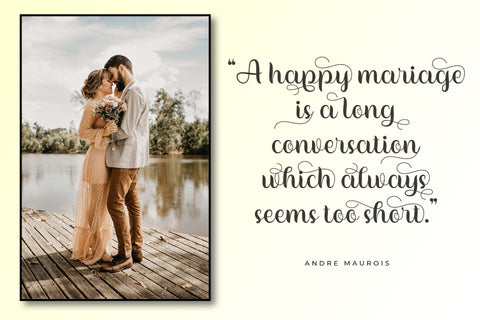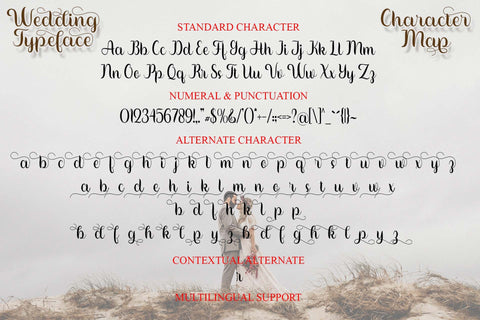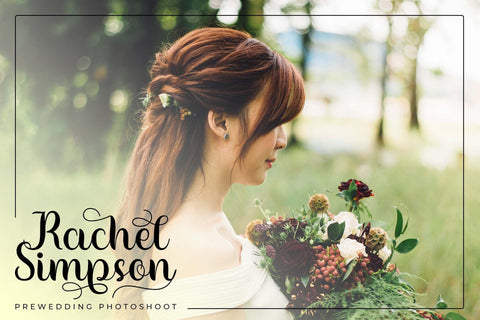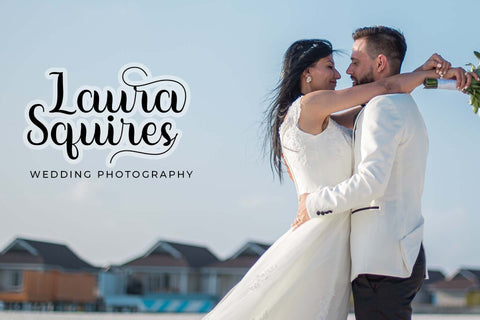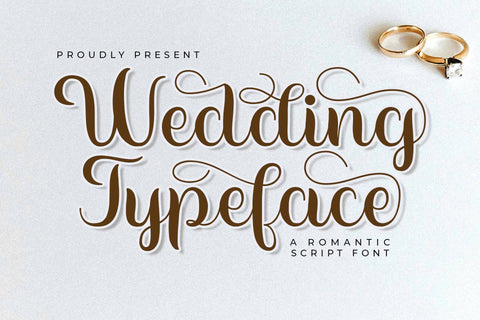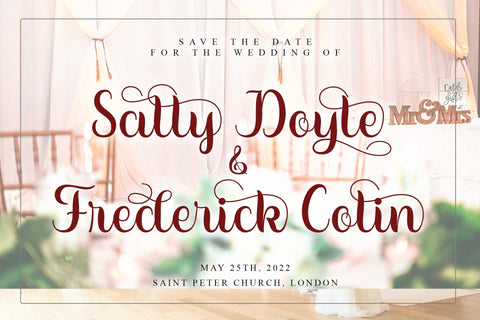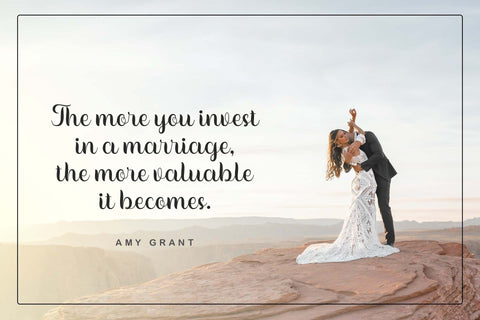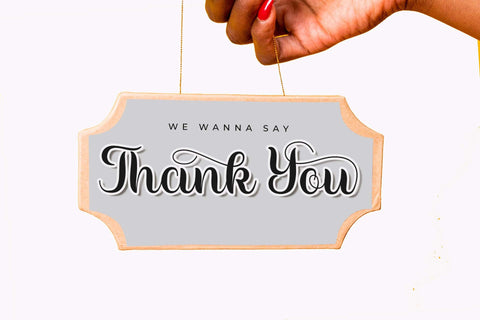
Wedding Typeface
Wedding Typeface is a distinct graceful script font. Fall for its ravishing style and use it to create gorgeous designs. This font is PUA encoded which means you can access all glyphs and swashes with ease!